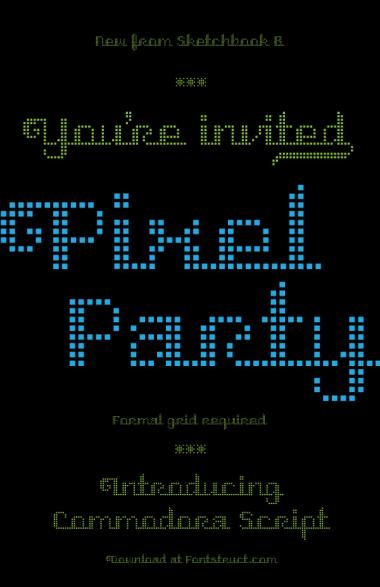
• Been a while since I released a typeface on Fontstruct, but this is my connected script entry for the competition. I'm still refining, but it's a good start... Oh, and I used a single brick...
Commodora in use...
Nice to see you back :) and with a very stylish design. 10/10
Stylish pixel font, I like especially the r.
Elegant pixels. The style-your-own swash kit at the end is a fantastic idea. Congrats on this strong entry in the Script comp!
Commodoraby Sketchbook B